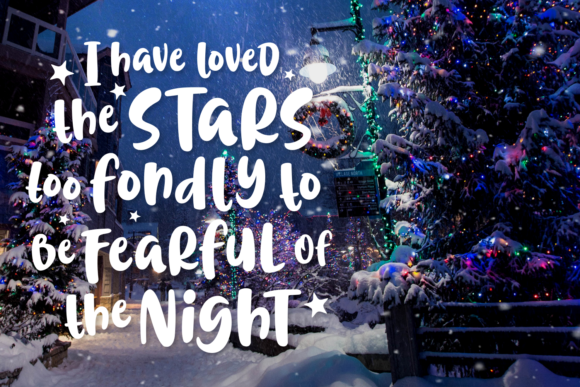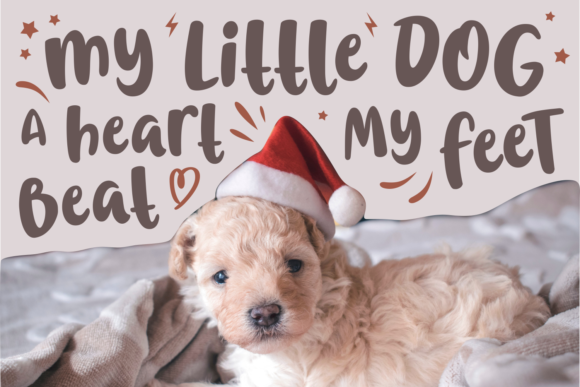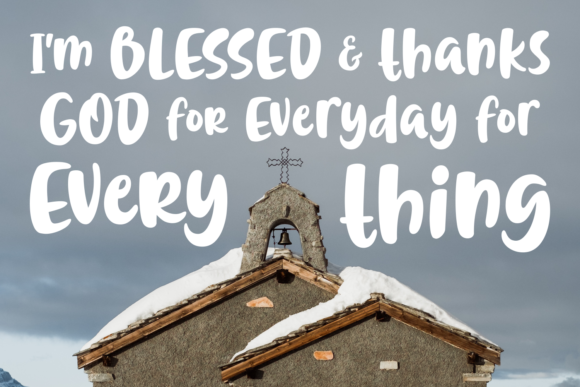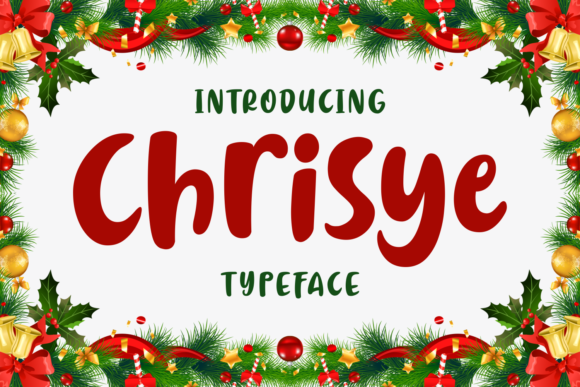
Introduction to Chrisye Font
The Chrisye is a whimsical script font.
Its bold letters have a fun and playful feel which makes it perfect for holiday designs .
Key Features of Chrisye Font